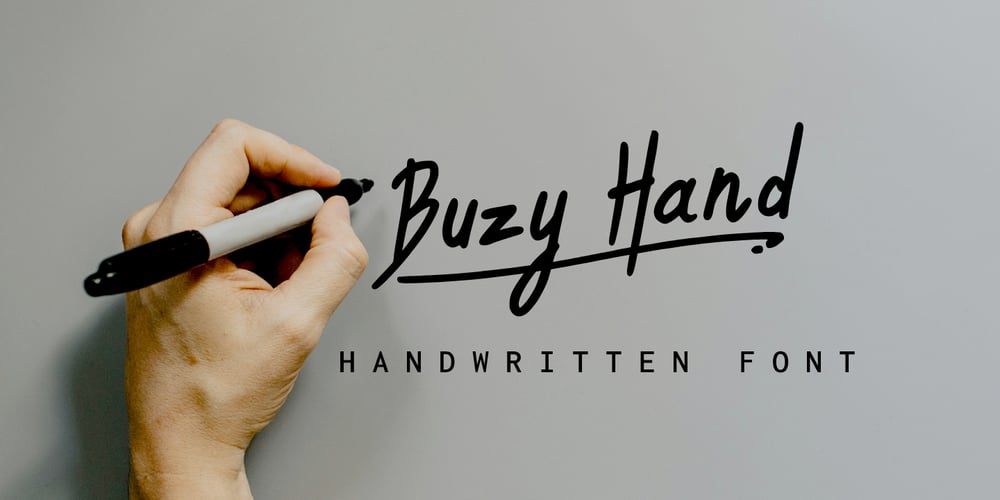
Busy Hand
Busy Hand font
Busy Hand Font Family was designed by Monica Tatontos and published by Moncimon. Busy Hand contains 2 styles and family package options. Introducing: Buzy Hand is a stylish handwritten font that adds a personal touch to any project. Its smooth curves and natural flow capture authentic handwriting beautifully.Key Features: Authentic Style: Real handwriting feel. Versatile Use: Great for invitations, cards, and branding. Readable and Artistic: Combines readability with flair. Creative Flexibility: Includes ligatures, swashes, and doodles on a separated file. Multilingual: Supports accented characters. Enhance your designs with Buzy Hand!